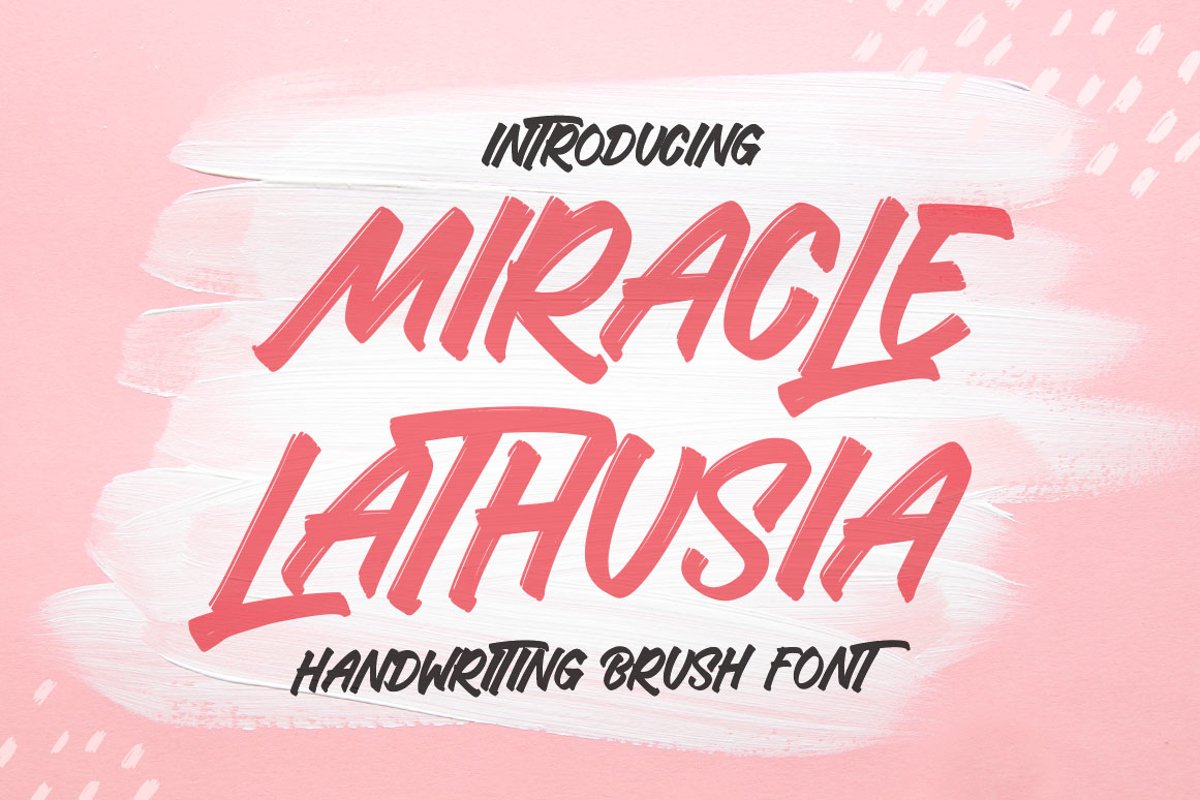
Brush Font - Miracle Lathusia
MiracleLathusia
Miracle Lathusia is a casual display font, created by using a dry brush pen. This font is the perfect fit for all of your logos, branding, social media, and crafty DIY projects.
• Miracle Lathusia includes Alternates and Ligatures Character
• Numbers + punctuation